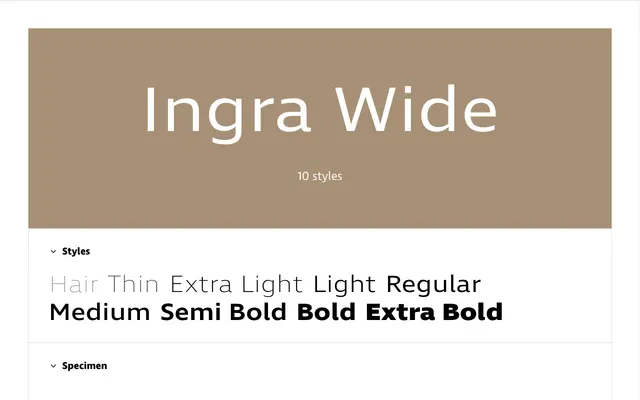
Ingra Wide
The wide-width member of the Ingra family, a near-monolinear humanist sans built for editorial systems requiring hierarchical range across weights and widths.
Ingra Wide spans nine weights from Hair to Extra Bold and is designed as a genuine complement to the standard and condensed widths of the Ingra family, rather than a mechanically stretched derivative. Strokes are nearly monolinear with terminals on horizontal and vertical axes, keeping counters open at small sizes while holding sufficient weight at display scale. OpenType support is thorough: small caps, four numeral styles, superior and inferior figures, ordinals, arbitrary fractions and sixteen stylistic sets covering alternate letterforms for a, g, i, k, l, u, y and more.
Ingra Wide is a humanist sans-serif with near-monolinear strokes, horizontally and vertically aligned terminals, and a generous x-height — characteristics placing it firmly in the humanist sans tradition, engineered for editorial legibility rather than geometric abstraction.